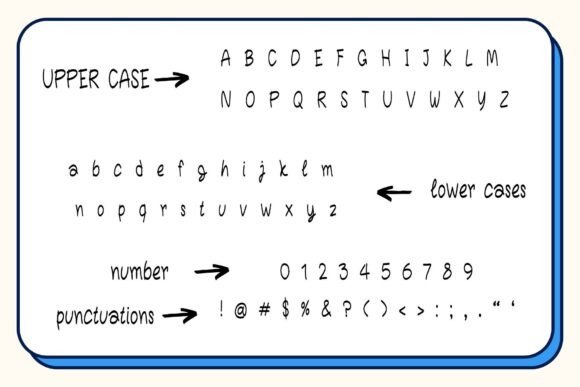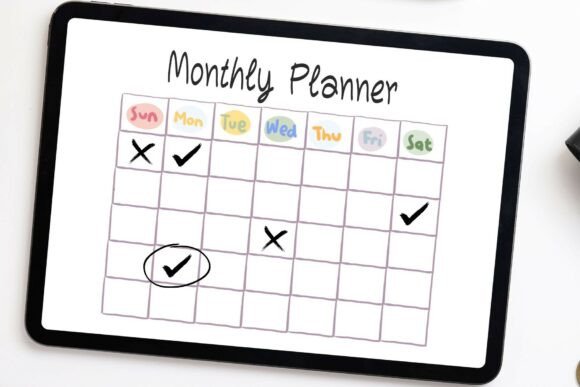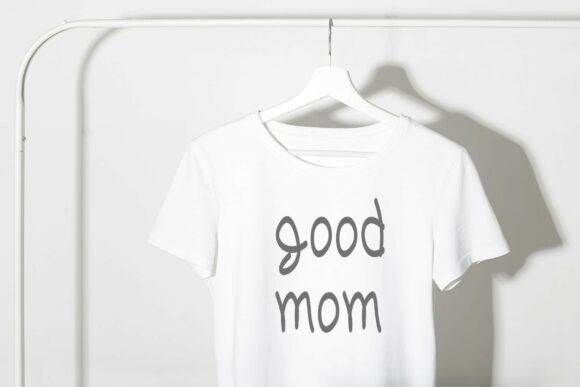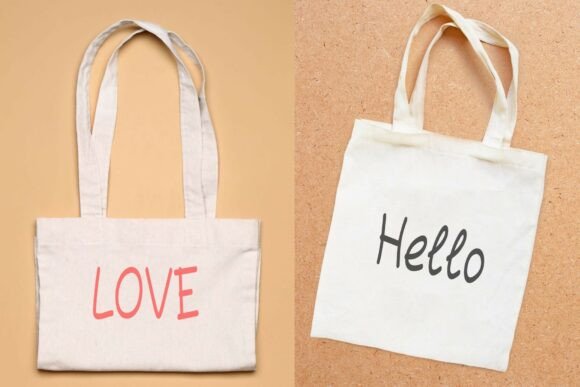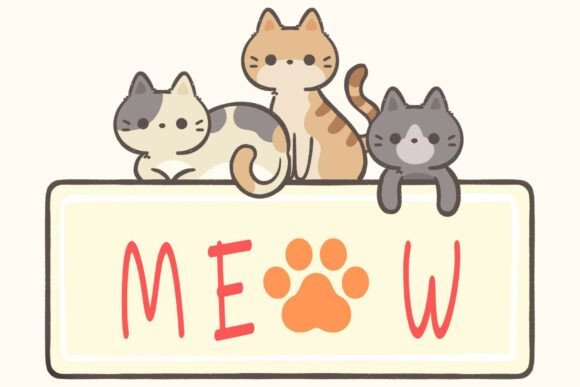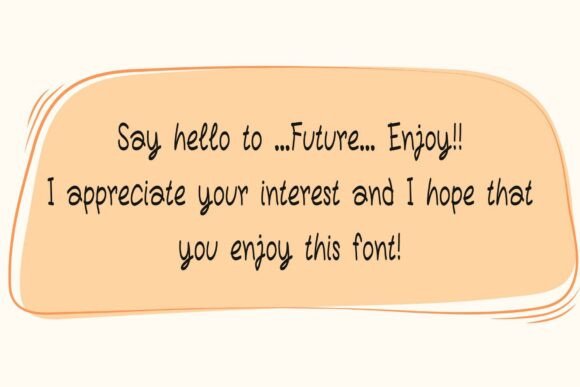
Introducing Future Font: The Ultimate Handwritten Font for Creative Expression
Are you a designer, crafter, or creative enthusiast looking for a unique and versatile font to elevate your projects? Look no further than Future Font, a beautiful handwritten font designed for commercial and personal use. With its elegant and approachable style, Future Font is perfect for a wide range of applications, from digital note-taking and planners to quotations, banners, logos, product packaging, titles, headers, and menu lists.
The Versatility of Future Font
One of the standout features of Future Font is its incredible versatility. This font can be used in a variety of contexts, making it an excellent addition to any designer’s toolkit. Whether you’re creating digital documents, print materials, or online content, Future Font adapts seamlessly to any style or theme. Its handwritten charm adds a personal touch to your designs, making them more engaging and relatable to your audience.
Key Features of Future Font
- Handwritten style: Future Font boasts a unique, handwritten look that’s both elegant and approachable.
- Wide range of applications: From digital note-taking and planners to quotations, banners, logos, product packaging, titles, headers, and menu lists, Future Font is perfect for numerous uses.
- Easy to read: The font’s clear and legible design ensures that your text is easy to read, even in smaller sizes.
Future Font offers numerous benefits for designers and crafters, including:
- Time-saving: With Future Font, you can quickly create professional-looking designs without spending hours on font selection and formatting.
- Consistency: This font ensures consistency across your designs, helping to establish a strong brand identity.
- Customization: Future Font can be easily customized to fit your unique style and branding needs.
- Increased creativity: The font’s unique handwritten style can inspire new creative ideas and help you stand out from the crowd.
Tips for Using Future Font Effectively
To get the most out of Future Font, consider the following tips:
- Pair with other fonts: Combine Future Font with other fonts to create a unique and visually appealing design.
- Experiment with colors: Try out different colors and color combinations to add depth and interest to your designs.
- Play with sizes: Use varying font sizes to create a hierarchy of information and add visual interest to your designs.
- Keep it simple: Don’t over-accessorize – let the font’s natural beauty shine through by keeping your design simple and clean.
Future Font is an exceptional handwritten font that’s perfect for designers, crafters, and creative enthusiasts. Its versatility, elegance, and approachability make it an excellent choice for a wide range of applications. Whether you’re looking to elevate your digital documents, print materials, or online content, Future Font is sure to become a valuable addition to your design toolkit.